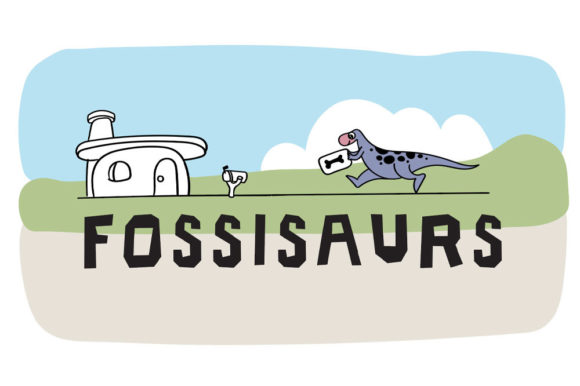
Journey back in time and unleash your inner artist with Fossisaurs Font, the ultimate display font inspired by the captivating era of dinosaurs and stone-age designs. Fossisaurs Font is not just a font; it's a portal to a world of creativity, adventure, and endless possibilities.
Embark on a typographic expedition through the Jurassic period, where each letter is a fossil waiting to be unearthed. Let your imagination run wild as you create designs that evoke the untamed spirit of the prehistoric age. From eye-catching art labels to captivating posters, Fossisaurs Font will transform your creations into masterpieces.
Immerse yourself in the intricate details and textures of Fossisaurs Font, meticulously crafted to capture the essence of ancient artifacts. Unleash your creativity and craft designs that exude authenticity and originality. Fossisaurs Font is the key to unlocking a world of limitless artistic expression.
Whether you're a seasoned designer or just starting your creative journey, Fossisaurs Font is your ticket to unlocking a world of typographic possibilities. Its user-friendly design makes it accessible to all, while its versatility allows for endless applications. Let Fossisaurs Font ignite your creative spark and elevate your designs to new heights.
Don't settle for ordinary fonts. Choose Fossisaurs Font, the ultimate display font that will take you on a journey through time and unleash your inner artist. Experience the thrill of creating designs that capture the imagination and leave a lasting impression. Join the ranks of creative visionaries who have embraced Fossisaurs Font and transformed their designs into works of art.